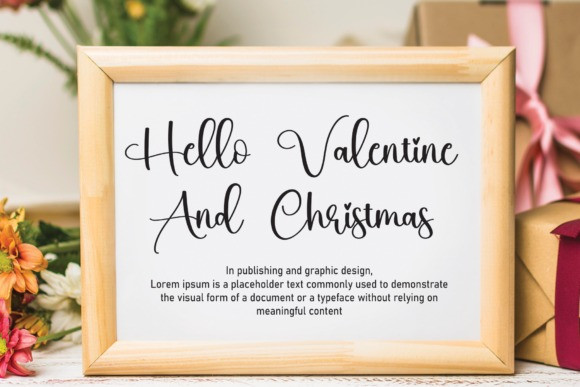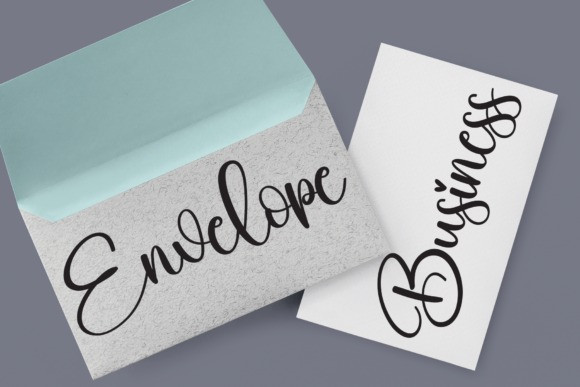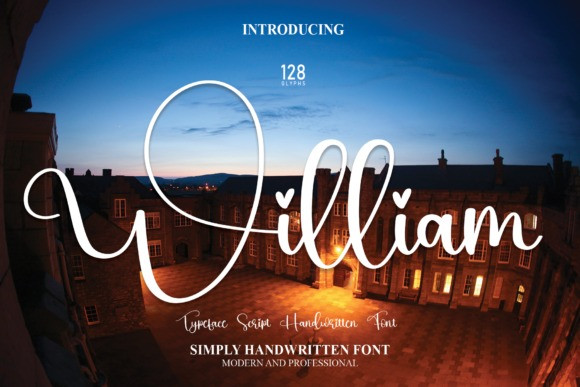
William Typeface
William Typeface is a romantic font perfect for wall displays, wedding invitations, social media post logos, advertisements, product packaging, product designs, labels, photography, watermarks, invitations, stationery, and any project that requires a sweet handwritten taste.